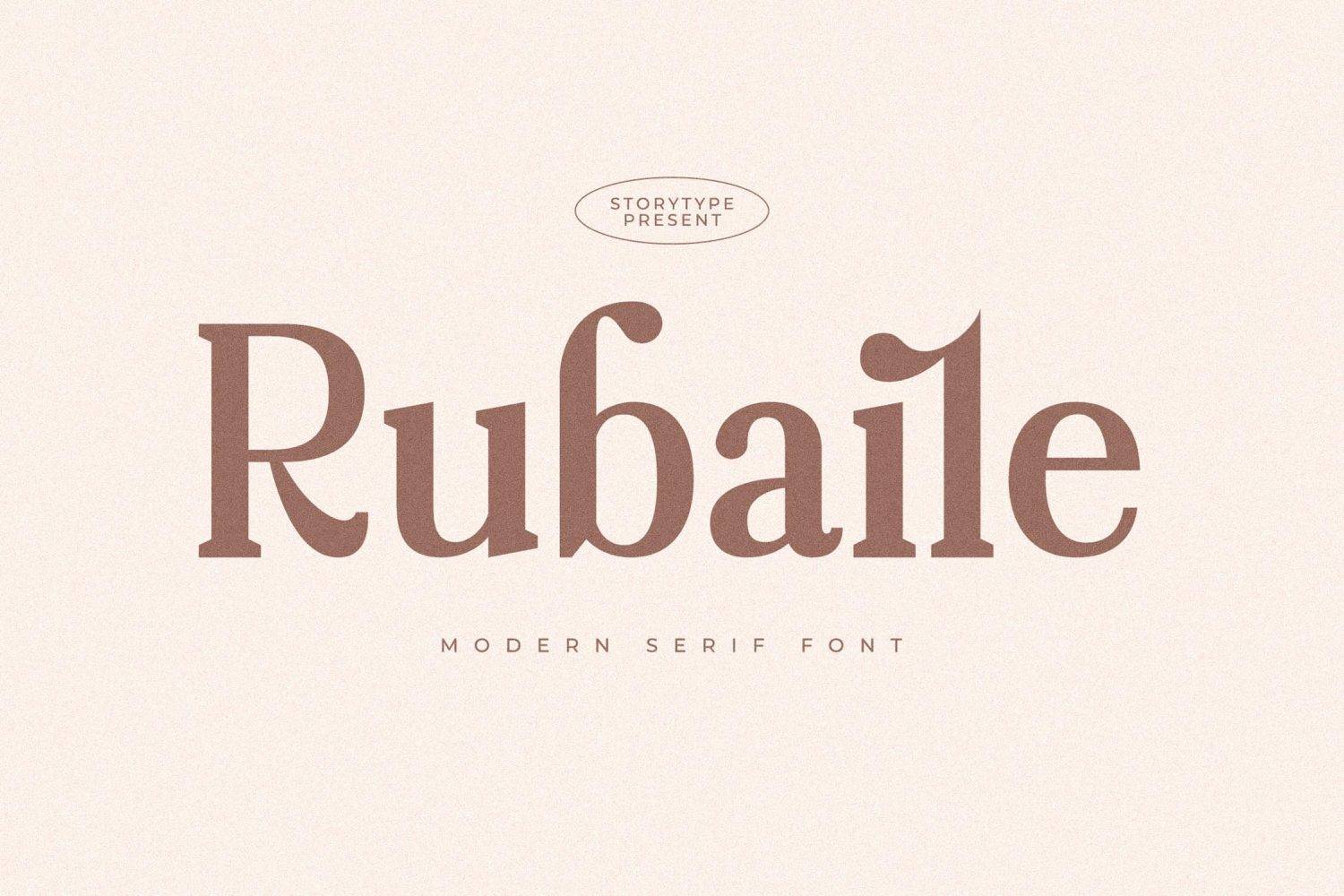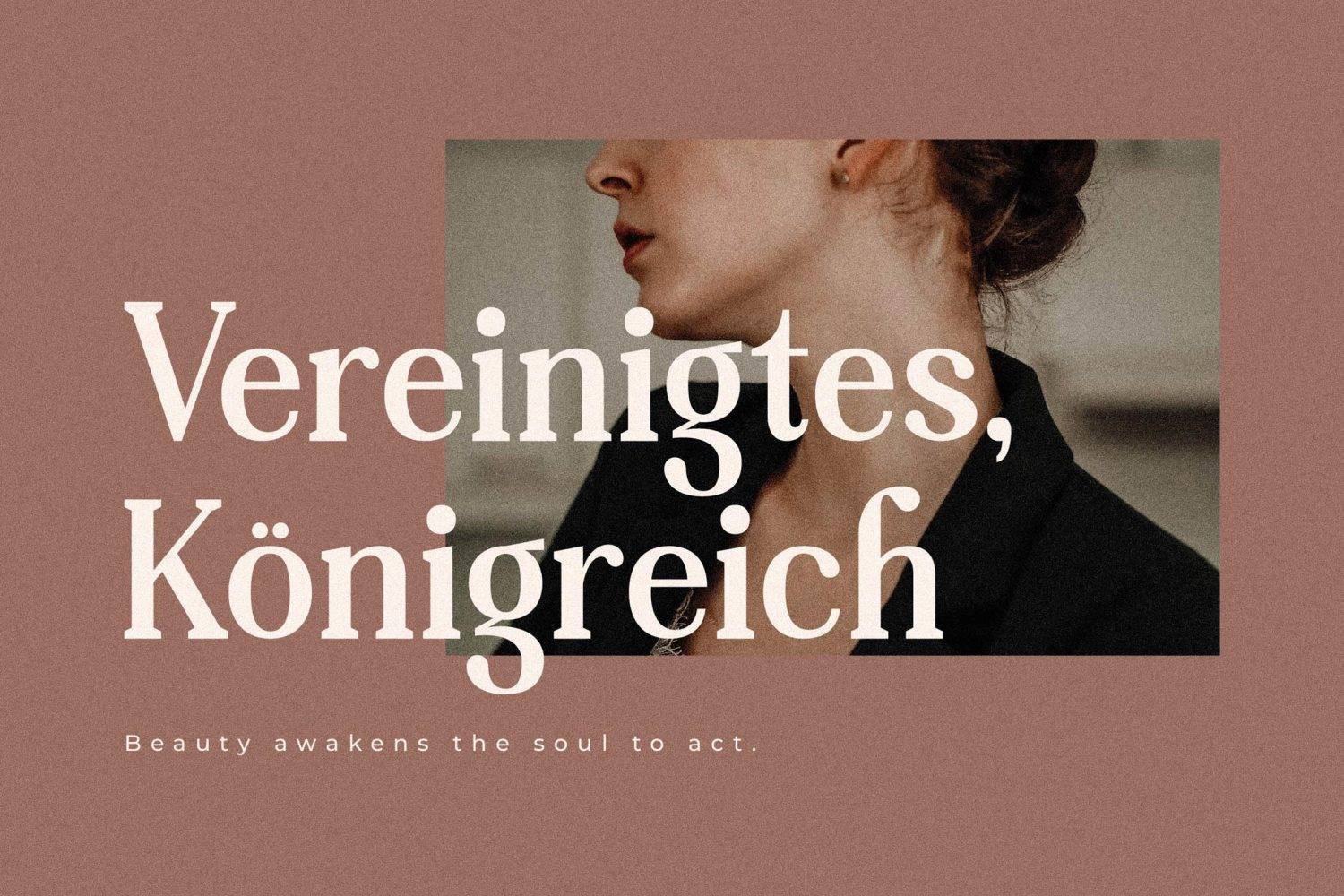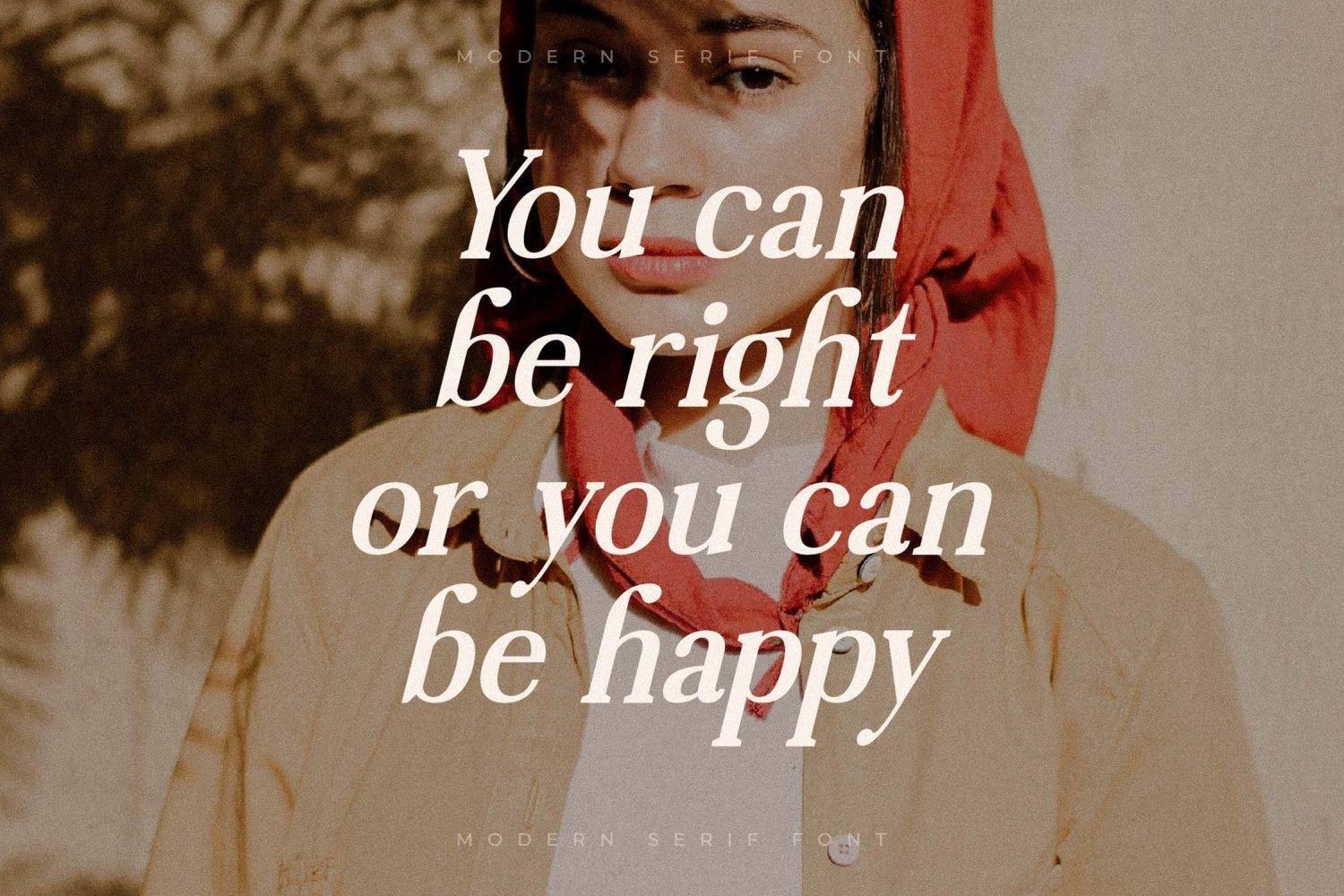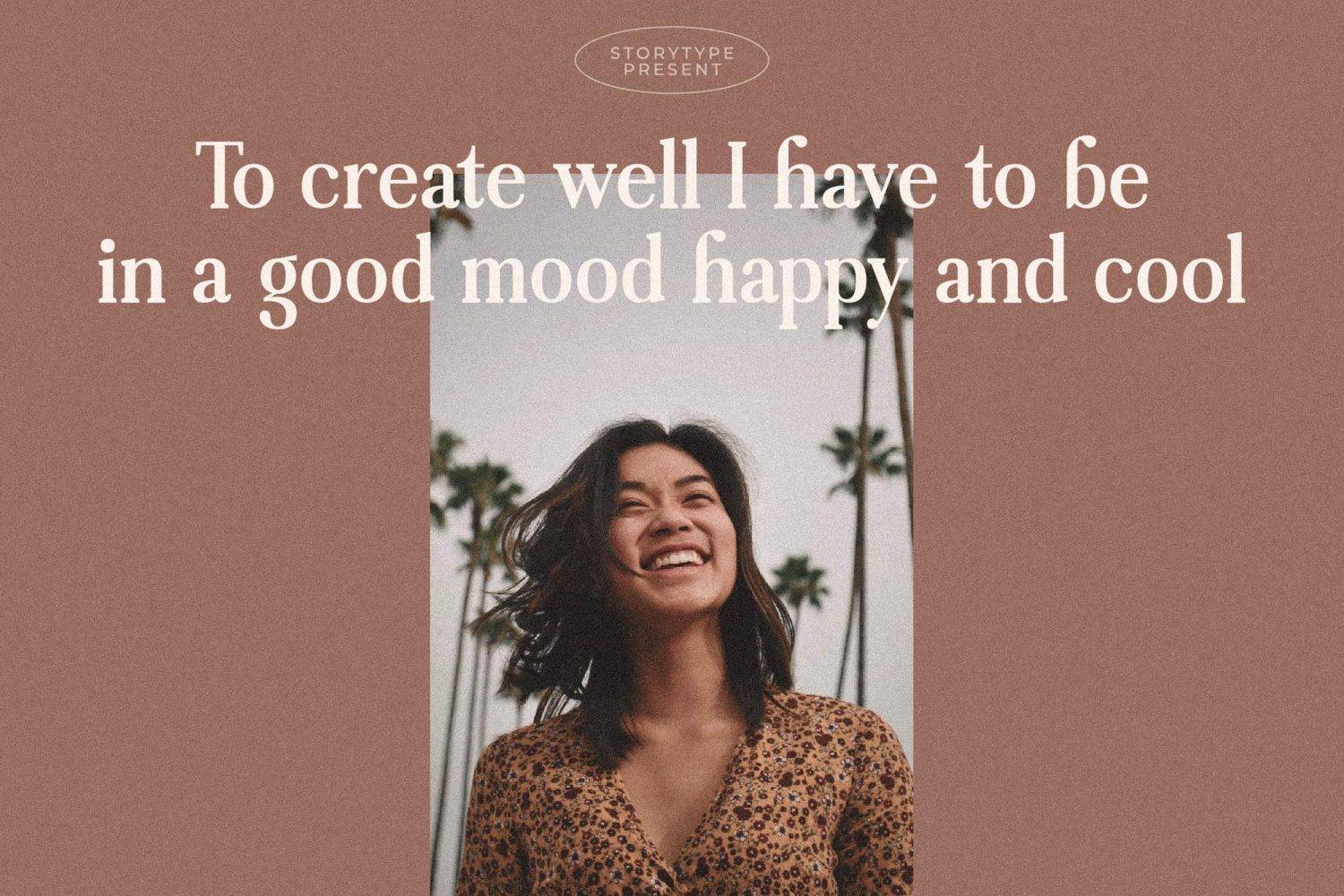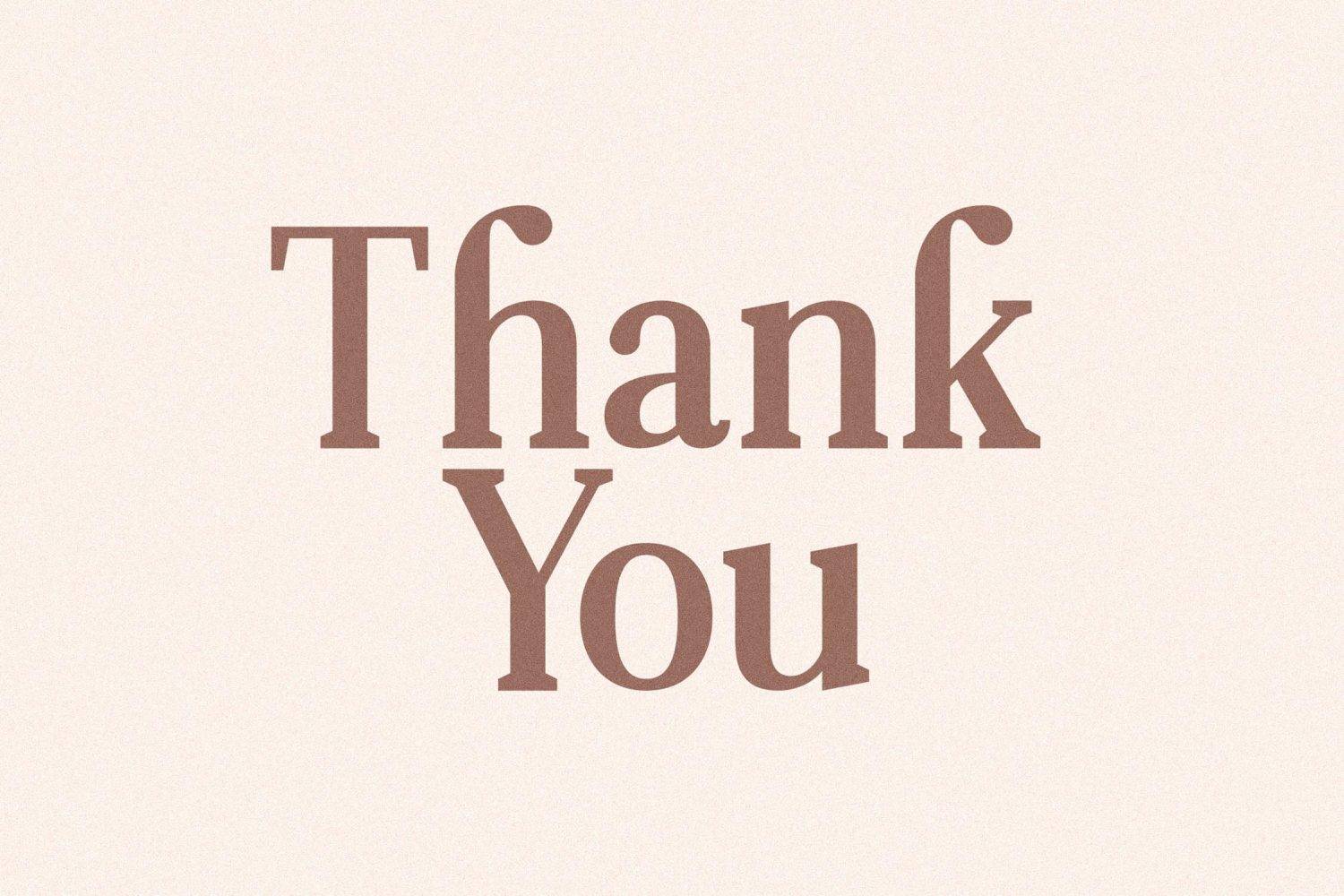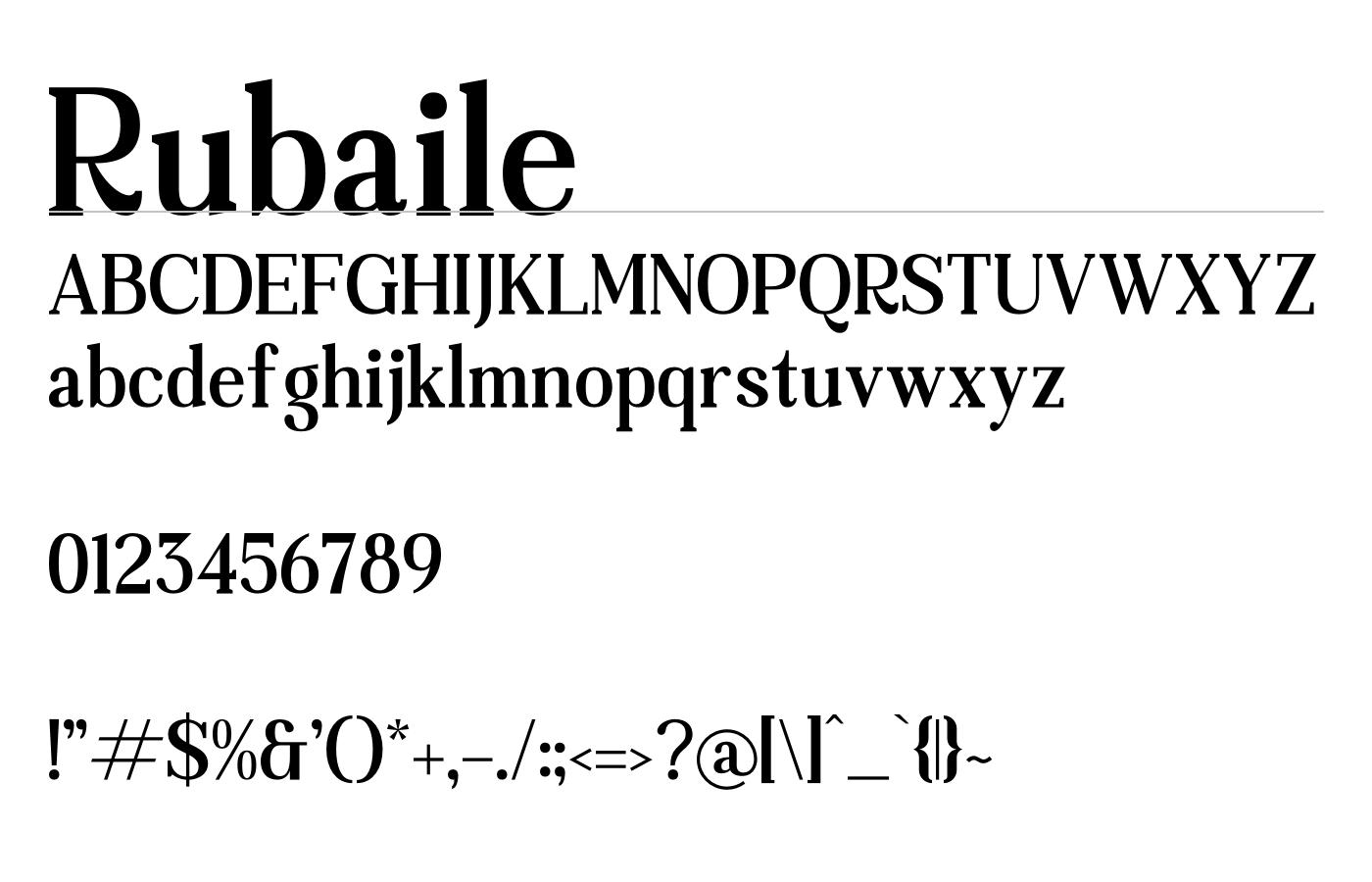
Rubaile is a classic serif font with a modern twist, featuring a strong contrast between thick and thin strokes and sharp, bracketed serifs that lend it elegance and clarity. Its balanced proportions and readable letterforms make it ideal for sophisticated editorial design, branding, and headlines where a refined yet approachable style is desired. Perfect for luxury brands and formal contexts, Rubaile combines tradition with contemporary sharpness to convey professionalism and timelessness.
Rubaile Font
About Rubaile Font